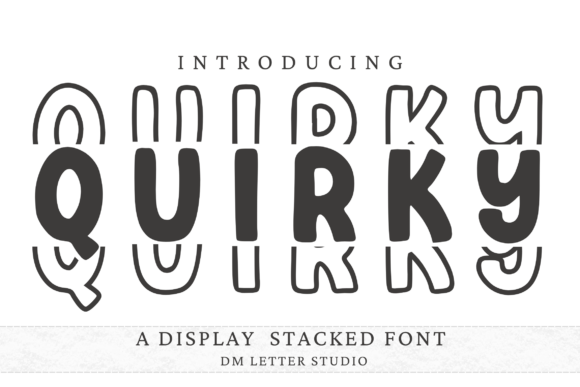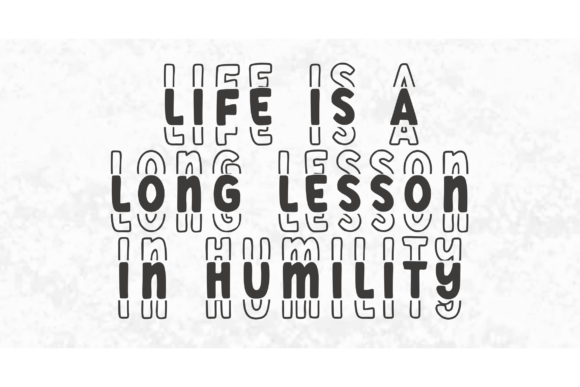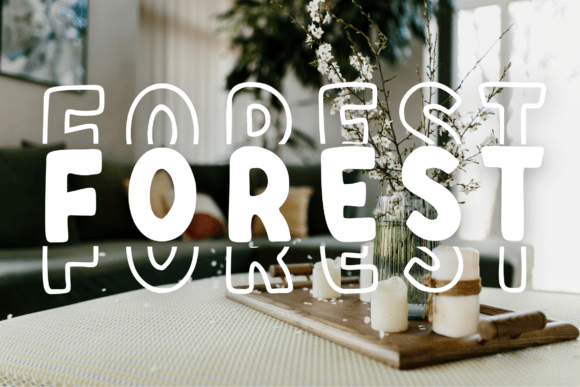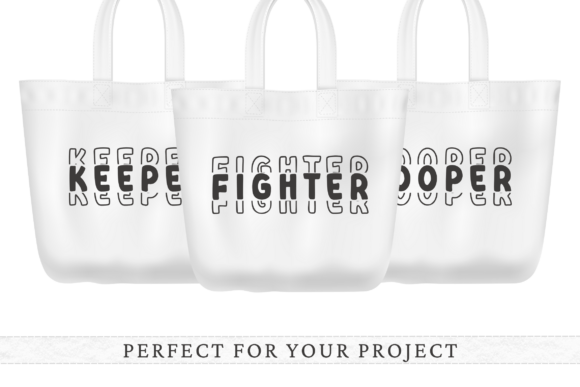
Quirky Stacked Font: A Playful Display Font for Unique Typography
About the Quirky Stacked Font
Introducing the Quirky Stacked Font, a beautifully crafted typeface designed to elevate your creative projects. Quirky Stacked is a fun and bold display font with stacked letterforms that bring a lively and modern twist to your typography. With its cheerful curves and layered alignment, this typeface is perfect for posters, kids’ crafts, branding, product packaging, and playful quotes. It adds a vibrant personality to every design.
Its playful, stacked structure makes it ideal for headlines, short slogans, and logos where impact is key. Avoid using Quirky Stacked for body text or lengthy paragraphs; its unique letterforms can become visually overwhelming and hinder readability in extended use. Consider pairing it with a clean sans-serif like Open Sans for a balanced contrast, or a more playful script font like Pacifico for a consistent energetic feel.
The font’s core personality is undeniably bold and friendly. It suits brands targeting younger demographics, those with a playful or quirky aesthetic, and projects needing a vibrant, attention-grabbing element. Think children’s books, toy packaging, or a social media campaign needing a fun, memorable visual. A geometric sans-serif like Montserrat could provide a modern, grounded counterpoint for a more sophisticated application.
Quirky Stacked Font Usage Examples
Quirky Stacked Font Example